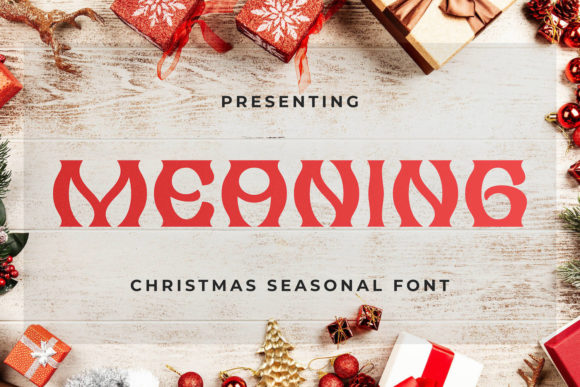
Meaning Font is a cool and bold serif display font family that will add an elegant touch to any design project. Its natural and unique style makes it incredibly fitting to a large pool of designs. The only limit is your imagination!
Meaning Font is perfect for creating headlines, logos, posters, and other marketing materials that need to stand out from the crowd. It's also a great choice for body text, as it's easy to read and visually appealing.
* It's a cool and bold display font that will add an elegant touch to any design project.
* Its natural and unique style makes it incredibly fitting to a large pool of designs.
* It's perfect for creating headlines, logos, posters, and other marketing materials that need to stand out from the crowd.
* It's also a great choice for body text, as it's easy to read and visually appealing.